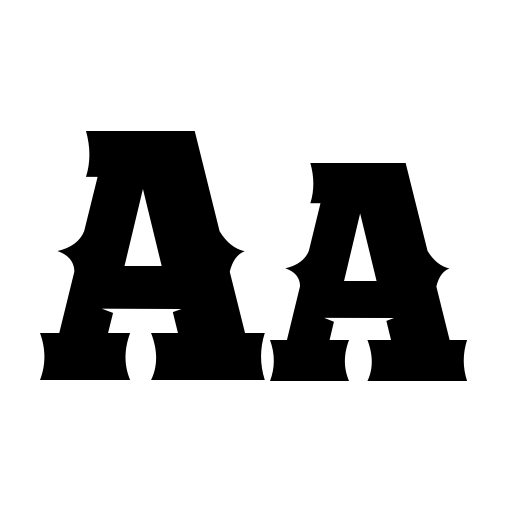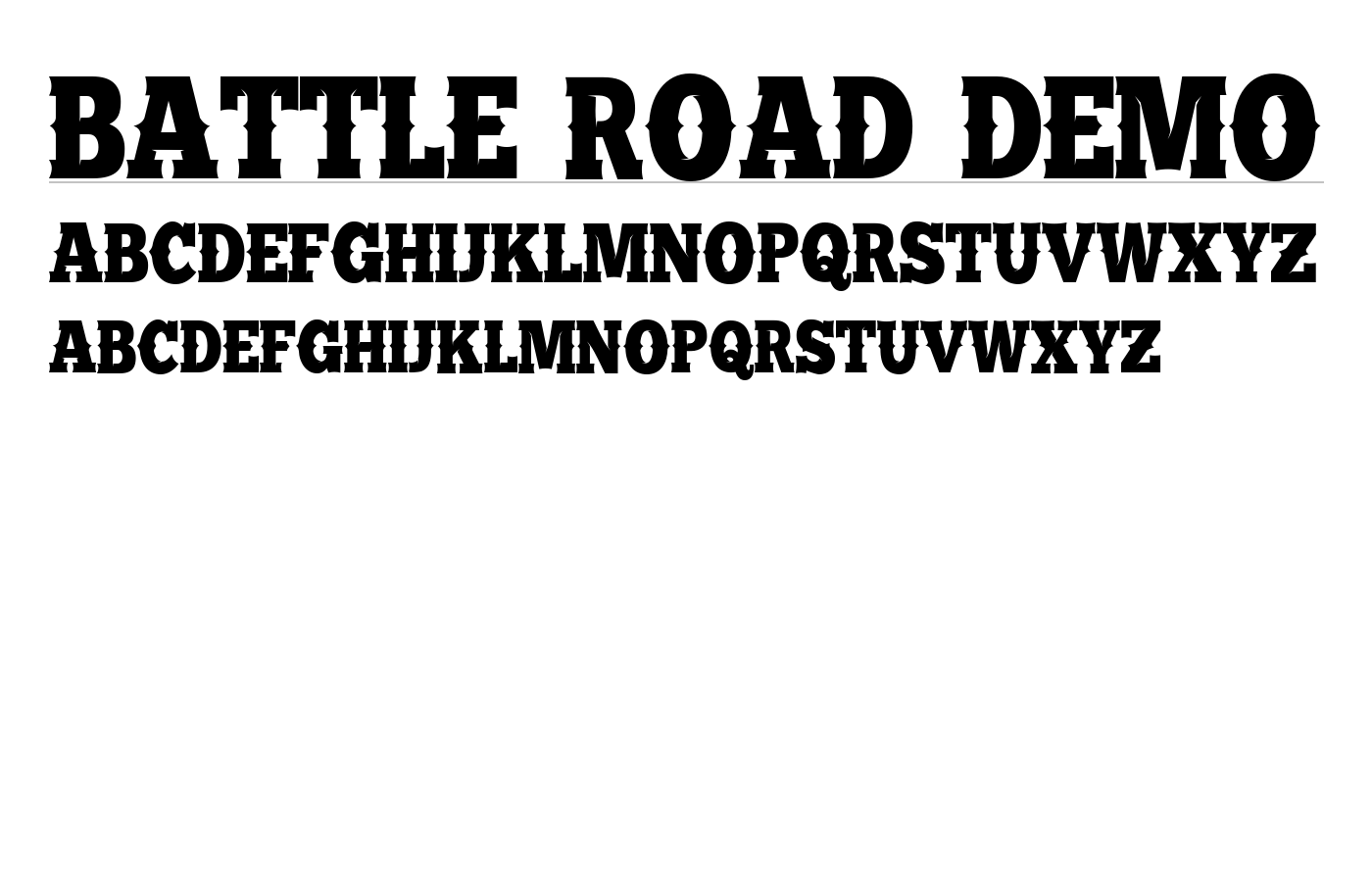
Battle Road Demo is a bold, condensed slab serif font with a strong, vintage Western feel. Its thick strokes and prominent bracketed serifs give it a rugged and adventurous character, ideal for impactful headlines, logos, or designs that need a tough, historical vibe. This font works especially well in branding, posters, and packaging where a bold, commanding presence is needed.
BATTLE ROAD DEMO Font
About BATTLE ROAD DEMO Font
| Font family | BATTLE ROAD DEMO Font |
| Designer | Fachranheit 2019 |